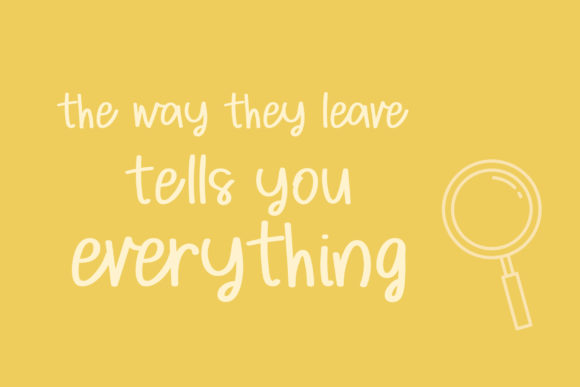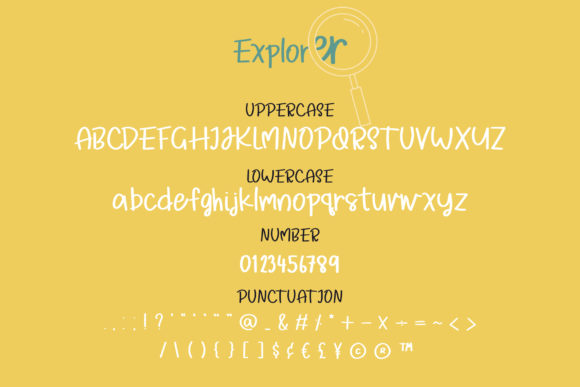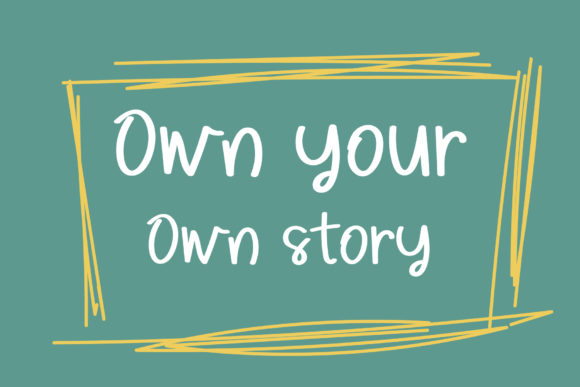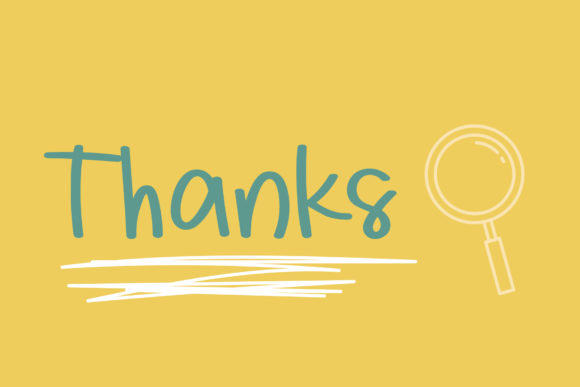
Introduction to Explorer Font
Explorer is a cute and casual handwritten font with an incredibly friendly feel.
Key Features of Explorer Font
Why Choose Explorer Font?
Explorer Font offers exceptional quality and versatility, making it a valuable addition to your design toolkit. Whether you’re creating for personal projects or commercial use, Explorer Font delivers professional results.